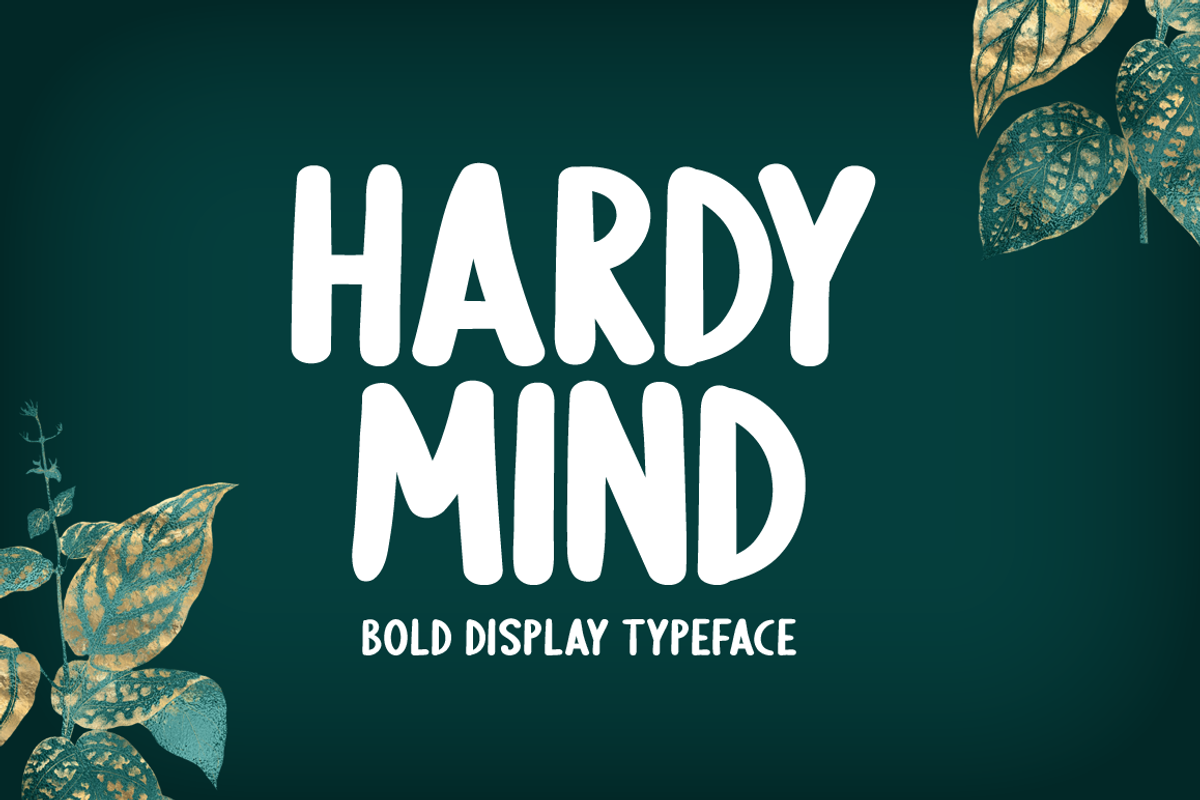
The Hardy Mind Typeface Free Download is a bold and contemporary font that exudes strength and sophistication. With its strong lines and modern structure, this typeface is perfect for a variety of design projects, including branding, advertisements, posters, and more. Whether you’re working on digital content or print materials, Hardy Mind’s stylish design will add a professional, cutting-edge feel to your work.
The Hardy Mind Typeface Free Download offers a versatile and striking design that works well in both large and small text formats. Its clean, geometric shapes ensure readability while giving your content a distinctive, modern edge. From web design to social media posts, this typeface is perfect for anyone looking to add a sleek, sophisticated touch to their designs.
Hardy Mind’s strong presence makes it an ideal choice for projects where you want to create a lasting impression. Whether you’re designing for corporate branding, creative advertisements, or digital content, this font adds a touch of elegance and modernity that ensures your message stands out.